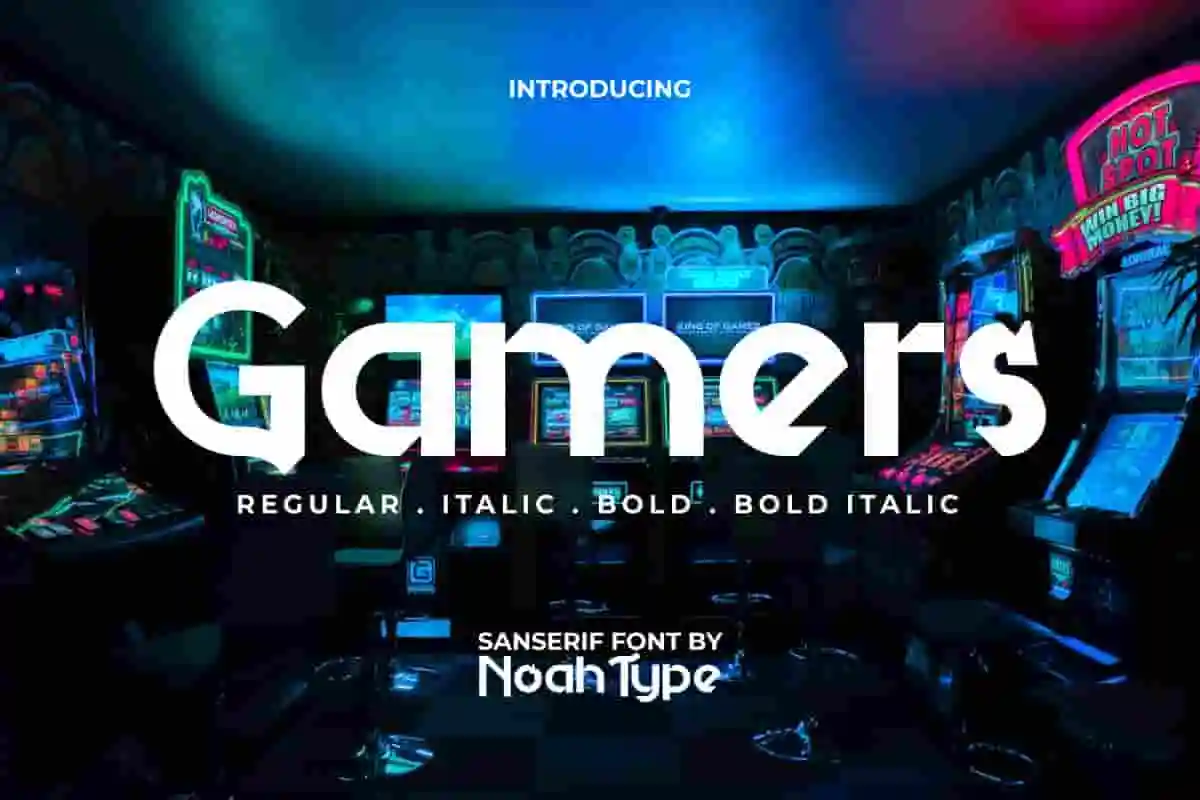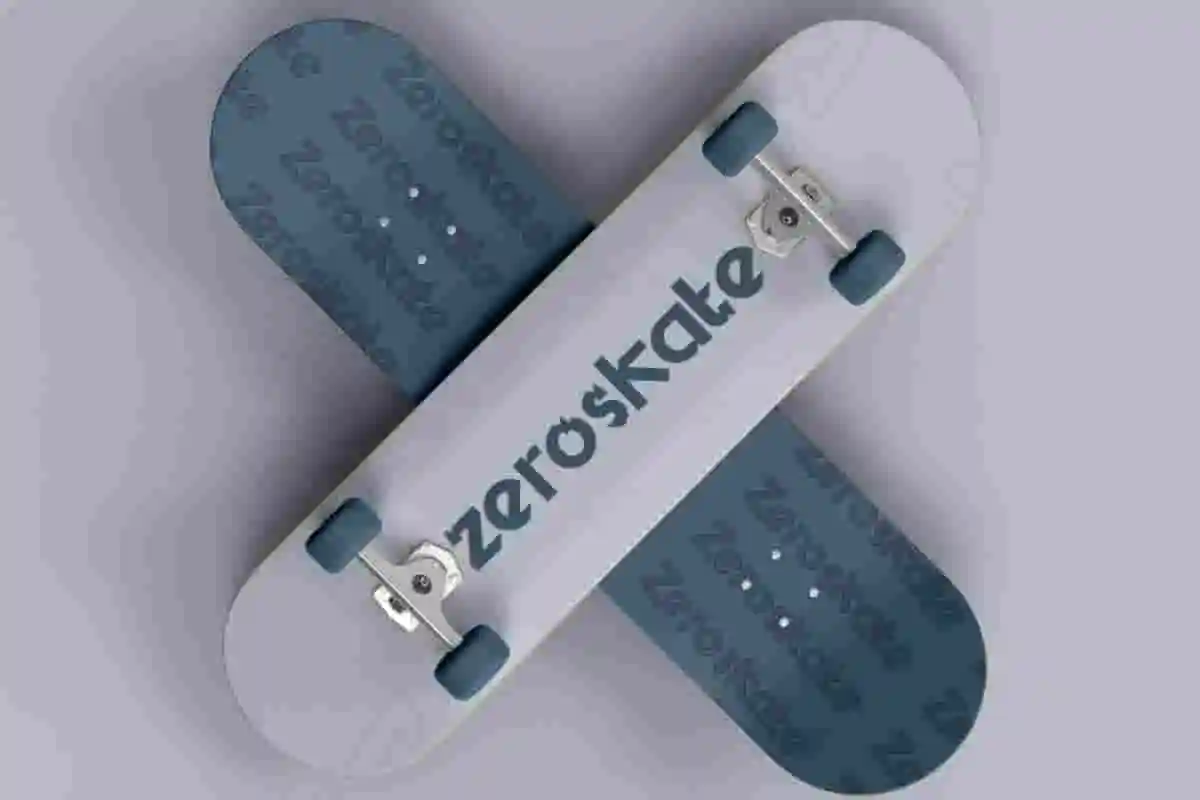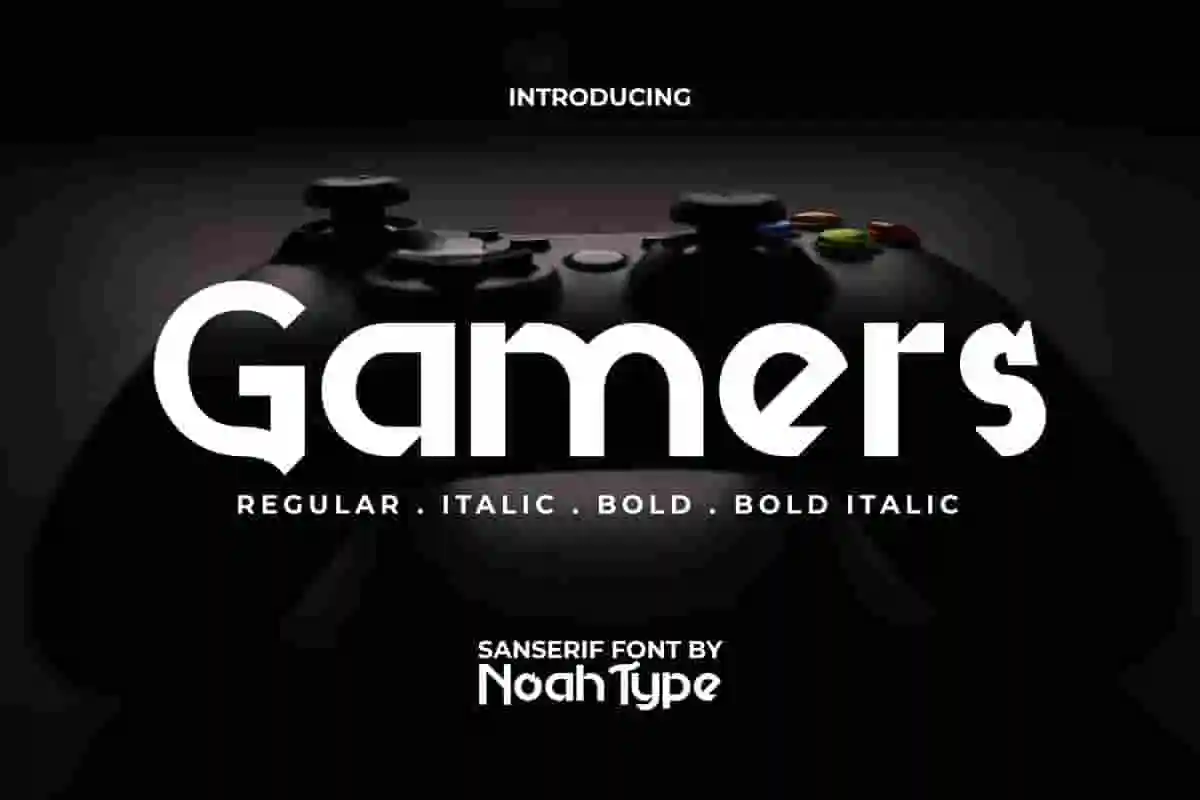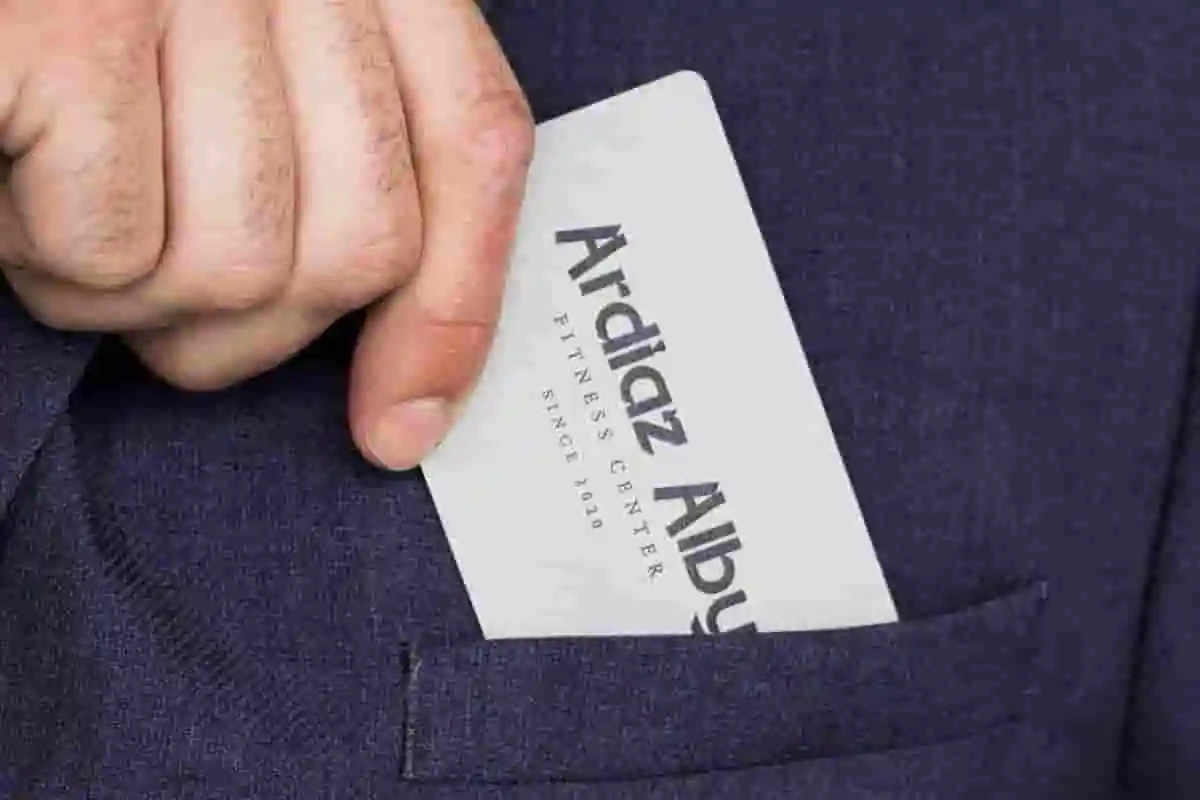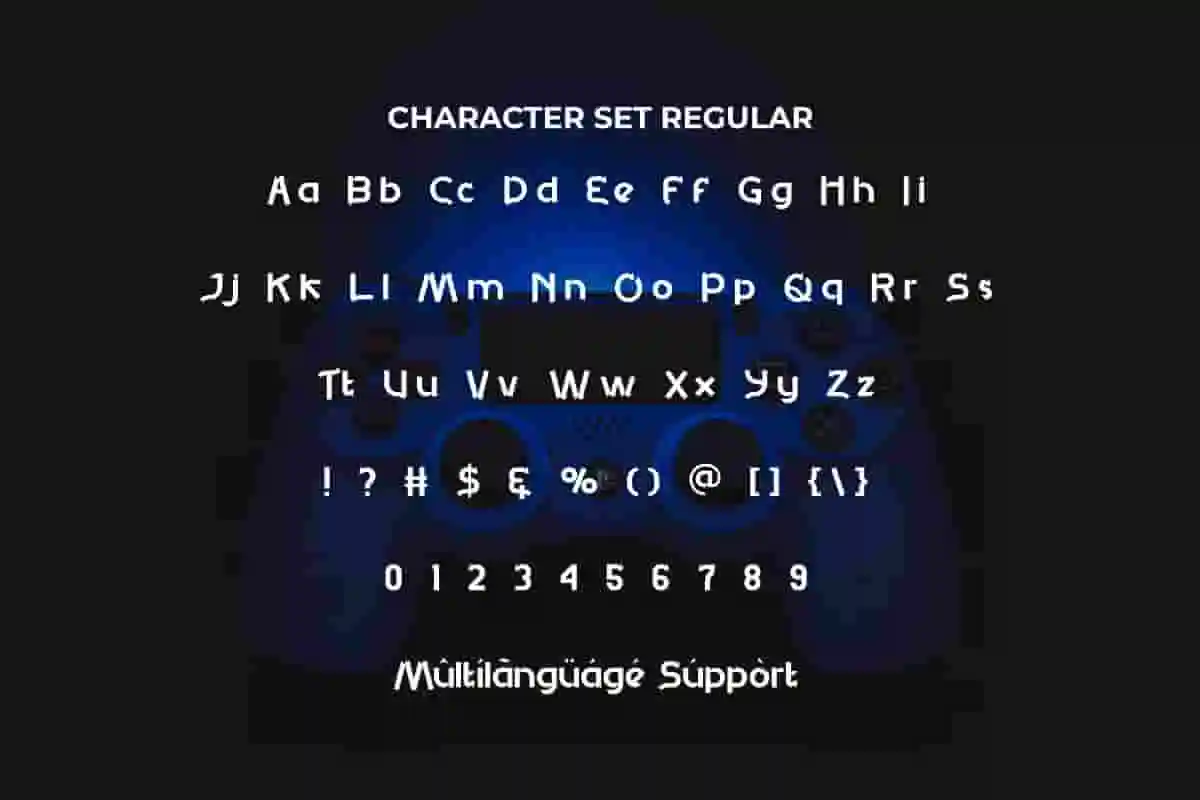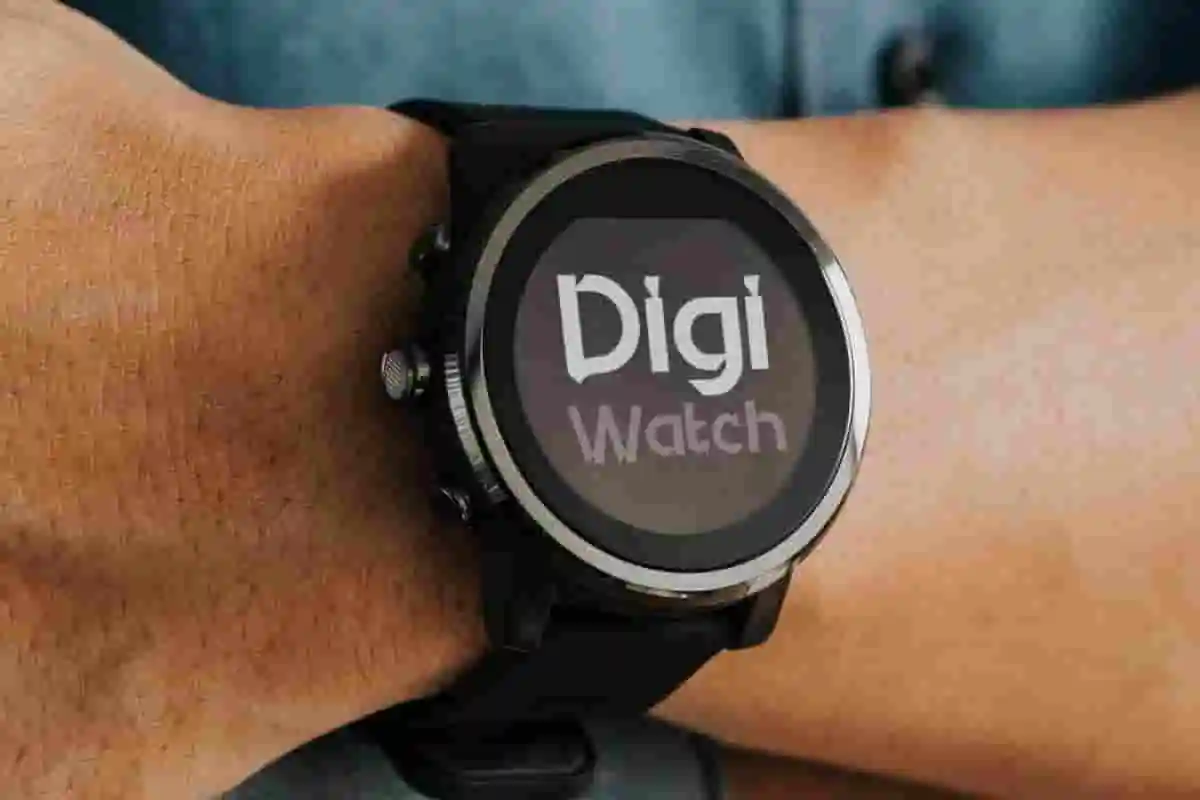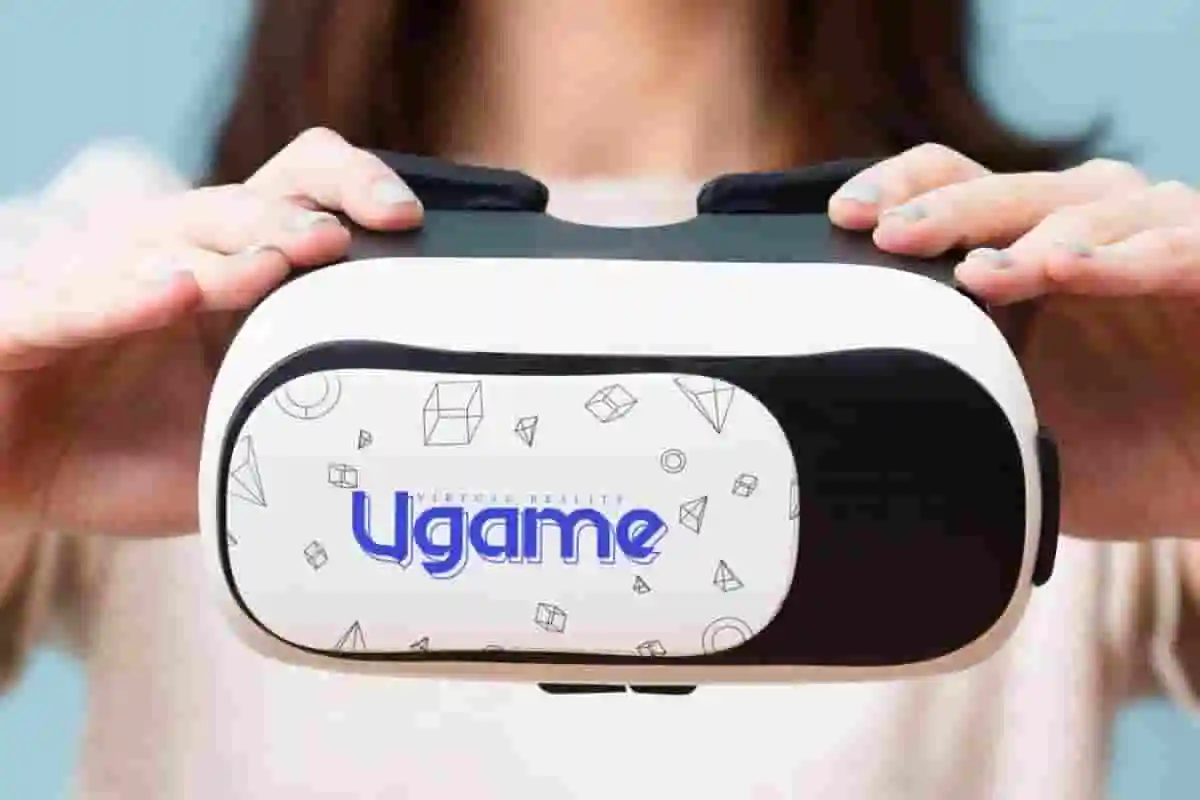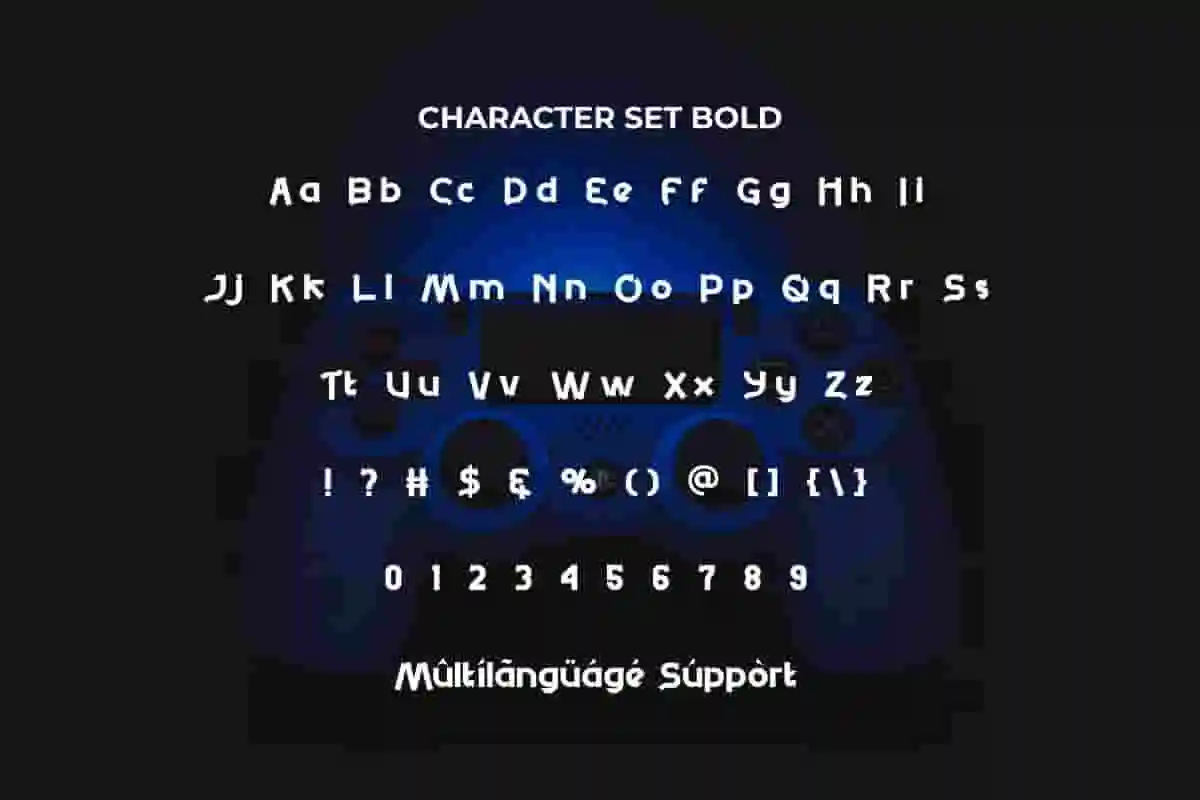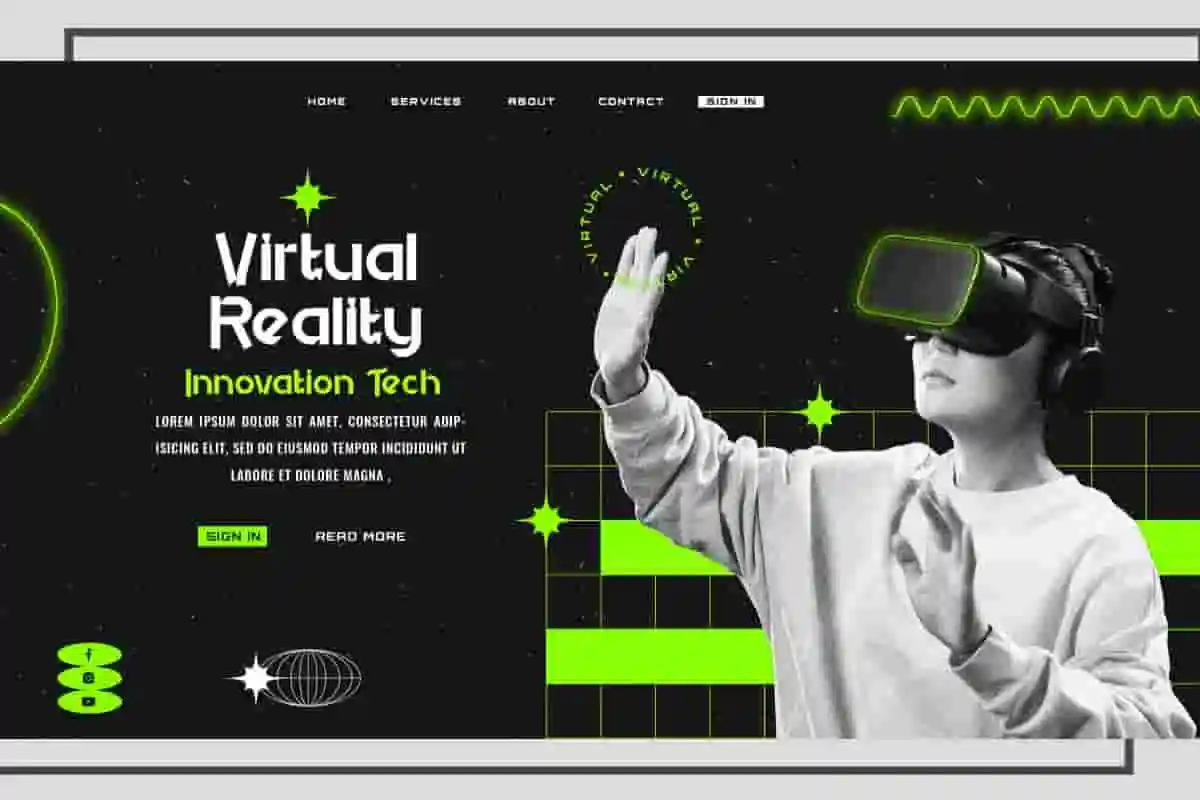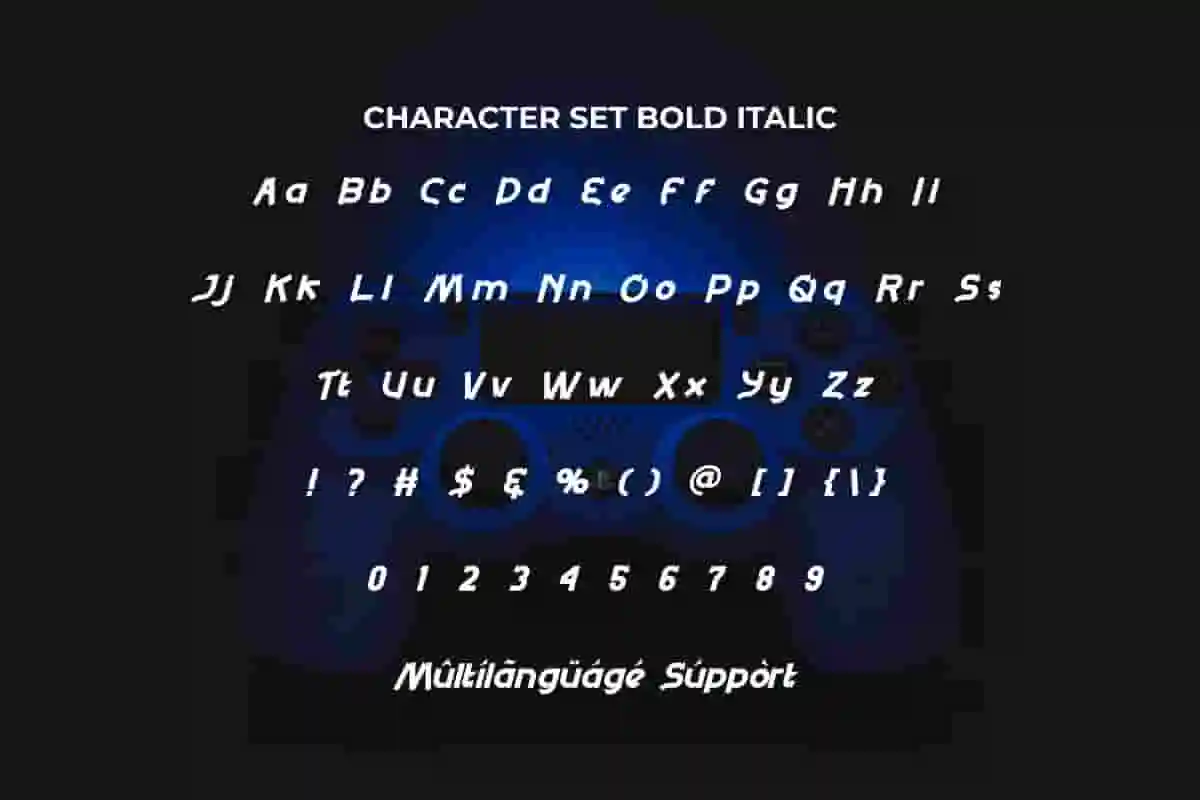
Gamers Font is a gaming futuristic stylish sans serif display font, created by NoahType. This font has unique shaped lines that will make your designs more interesting! It would be perfect choice for many industries, such as accessories, advertisement, café, fashion, furniture, game, movie, handicrafts, printing, publishing, restaurant, sport, and more!
Gamers Font include full set of Uppercase and Lowercase Basic Characters, Numerals and Punctuation. This font will give it a unique sports vibe that available in four styles: Regular, Italic, Bold, and Bold Italic. Also can be used in any design, such as business card, catalog, label, magazine poster, product packaging, screen printing, signage, stationery, sticker, title, website, etc.
Gamers Sans Serif Font is designed with sharp lines, clean curves, and a balanced structure that makes every letter stand out. Whether you are creating a gaming logo, esports banner, or YouTube thumbnail, this font ensures your design is unforgettable. Its versatility also makes it ideal for merchandise, website headers, and event promotions, giving your projects a professional yet playful look.